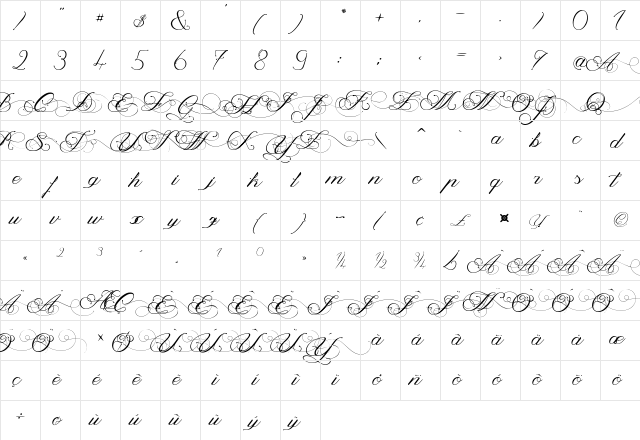
Magnolia Italic
| Foundry | M.K.V |
Design Context for Magnolia Typeface
Magnolia is a composed and adaptable typeface that performs quietly and consistently across a wide range of design contexts. The dynamic lean of this cut emphasises speed and emphasis in any layout.